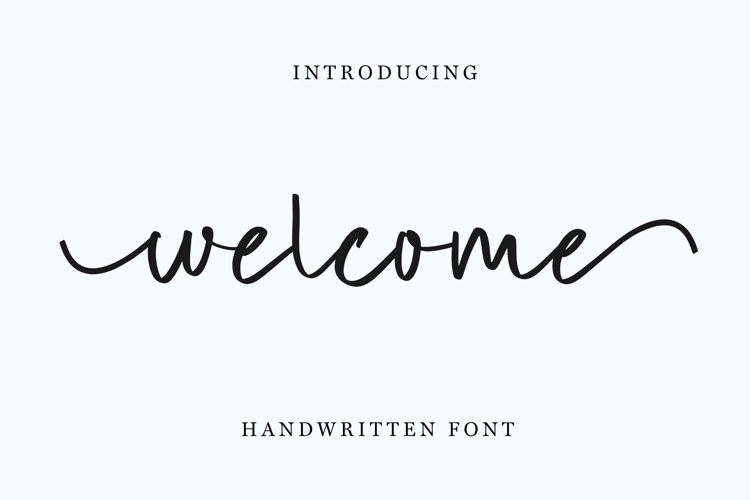
Welcome is a smooth and elegant handwritten font. Its flowing strokes create a warm, inviting feel that enhances any design. This charming script adds a joyful and stylish touch, perfect for branding, logos, wedding invitations, greeting cards, social media, and any project that needs a modern yet casual handwritten look